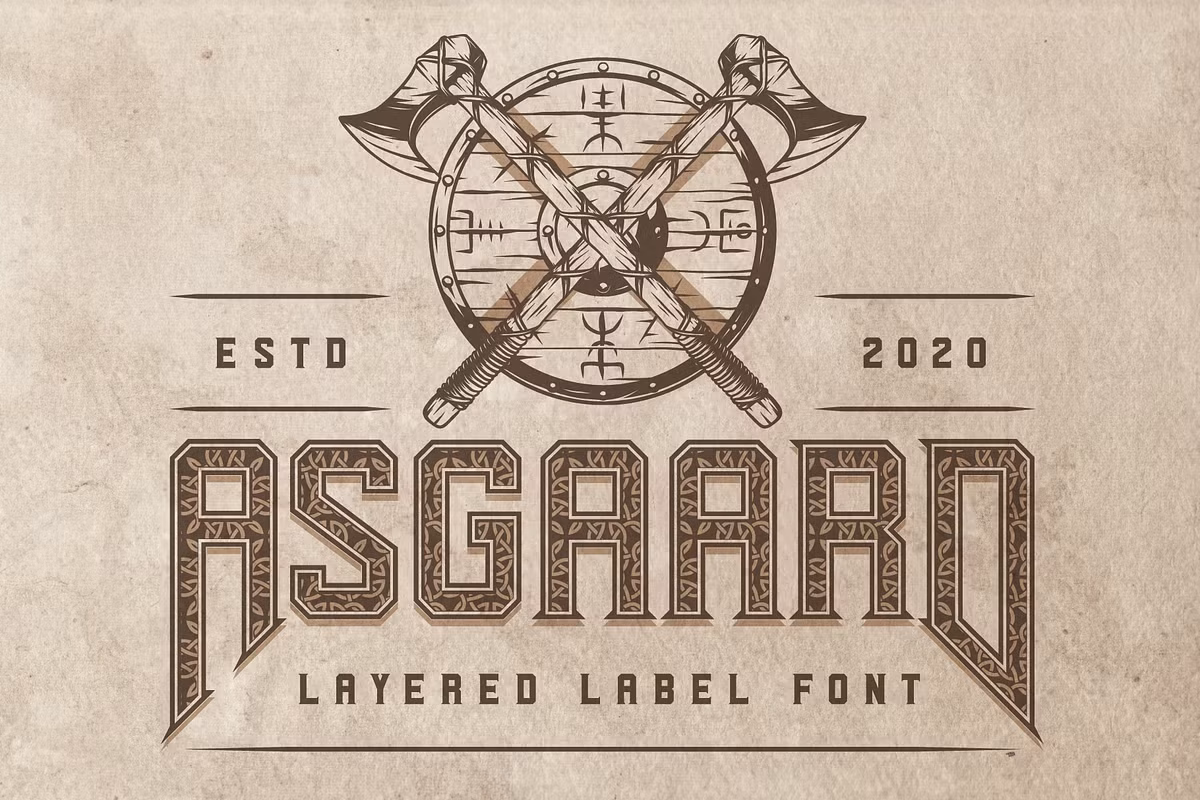
Please note, to use this font for commercial purposes, you must purchase the full version. Asgaard Layered Label is a bold and striking font that brings a vintage label style with multiple layers, allowing for unique and dynamic designs. Perfect for logos, branding, posters, and product packaging, this font adds an industrial yet classic feel to your work. Whether you're designing a retro logo, a bold label, or a creative advertising campaign, Asgaard Layered Label provides depth and style. Test it out and enjoy free download access for personal use. Experience the powerful style of Asgaard Layered Label Font Free Download before purchasing the commercial license. Add a distinctive, layered touch to your designs with Asgaard Layered Label.